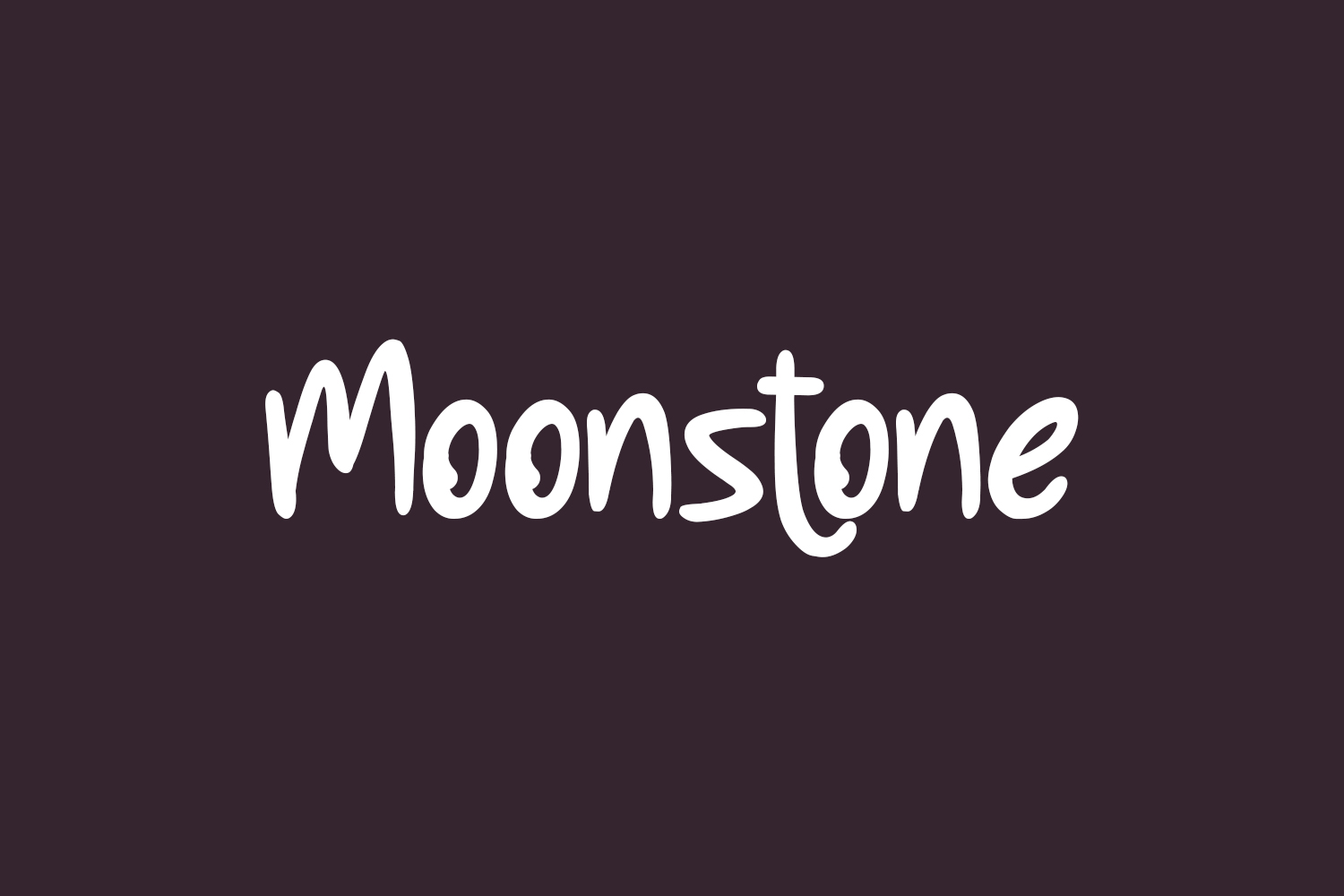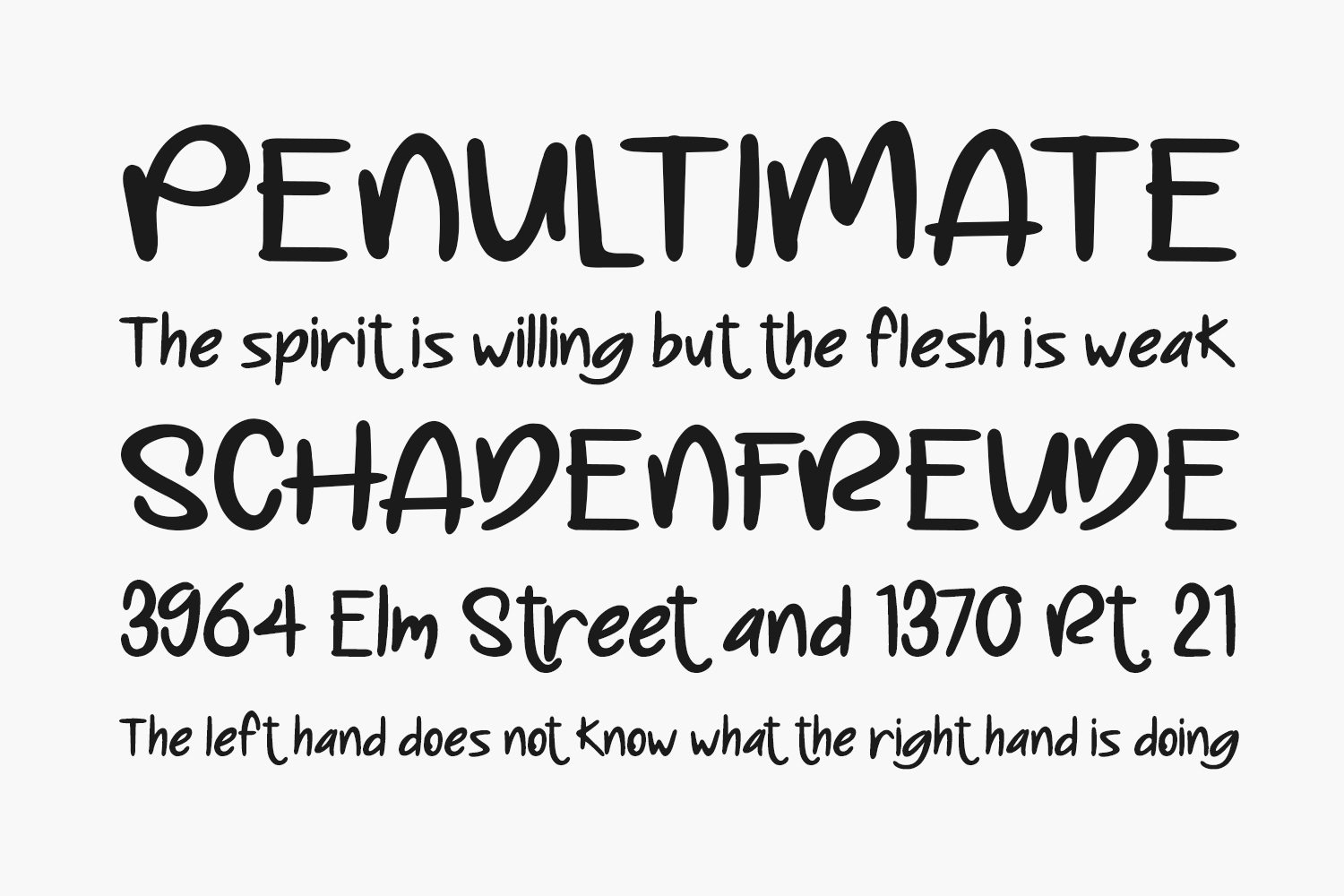
Moonstone Free Font is the definition of fun, uniqueness, and authenticity. This eye-catching font will turn your creative ideas into a standout. It will take your various design projects to the highest level, be it branding, headings, book cover, t-shirt, mug design, logos, labels, and much more. Moonstone Free Font was designed by RT Studio and is free for personal use only. Please purchase the full version for commercial use.
Designed by RT Studio